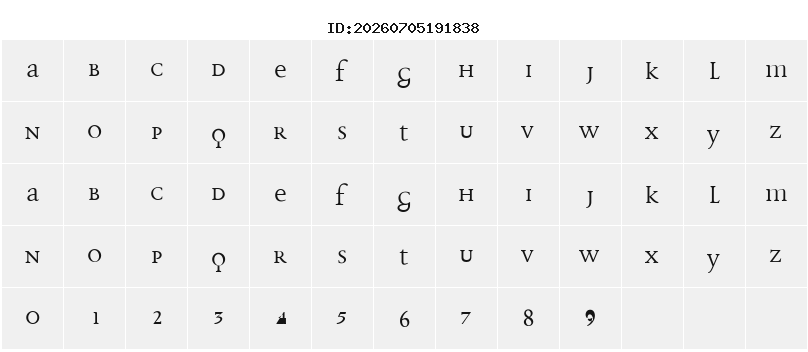
Disturbance Preview
• Font Name: Disturbance
• Full Font Name: Disturbance-Regular
About Disturbance.ttf
Disturbance.ttf is a modern, elegant sans-serif font designed for ultimate readability and visual harmony. Perfect for branding, headlines, web design, and print materials.